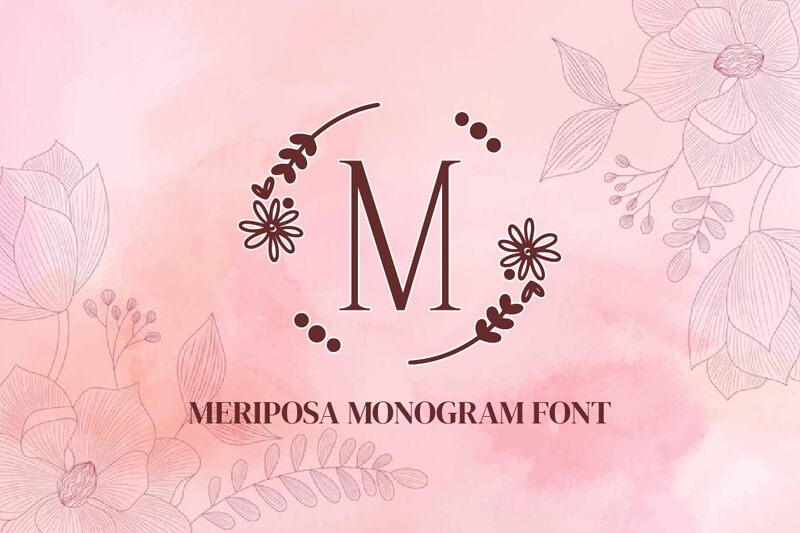
Meriposa
Meriposa, a decorative display font by Letterayu, adds a touch of whimsy to any project.
With its semi-light weight and intricate details, this font is perfect for creating eye-catching headlines and logos that demand attention. Its unique style lends itself well to various projects such as wedding invitations, book covers, and art prints. Meriposa's delicate curves and playful flourishes make it an ideal choice for adding elegance and charm to branding materials or social media graphics.